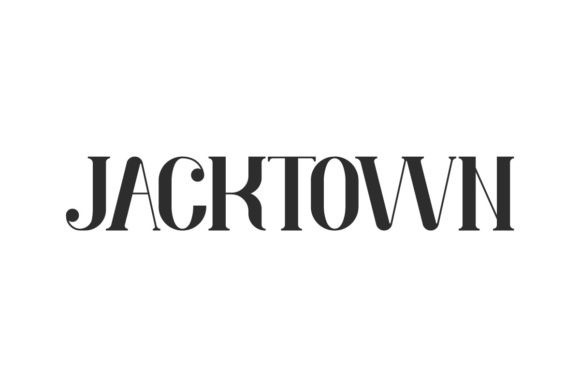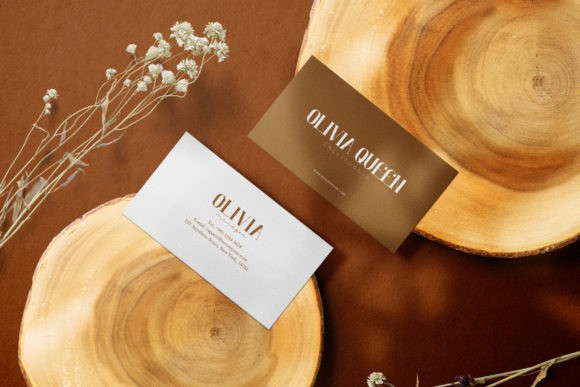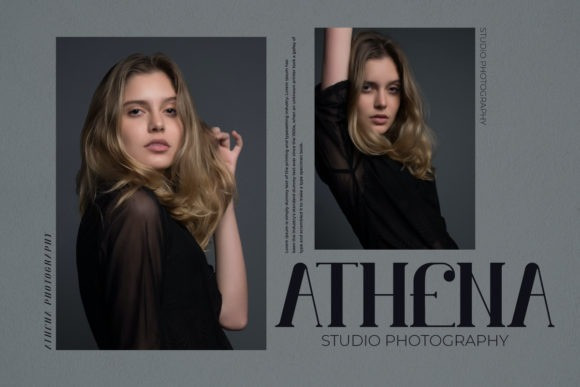
Jacktown Font
Jacktown is a vintage and distinct display font. It is perfect for product packaging, branding project, magazine covers, social media, wedding, or just used to express words above the background.